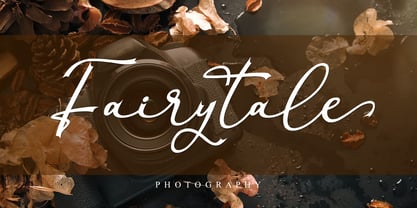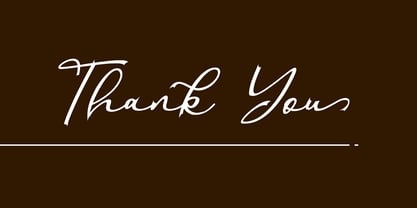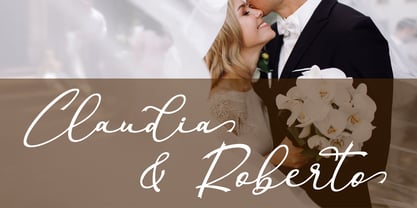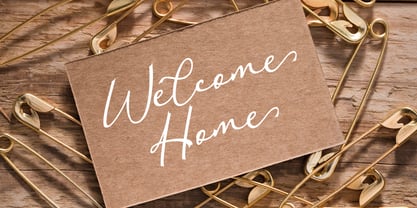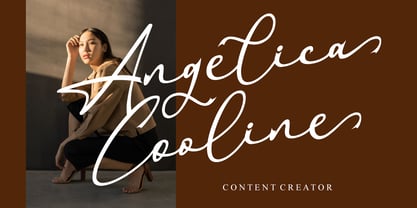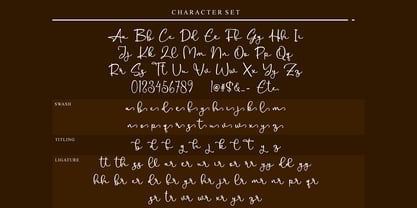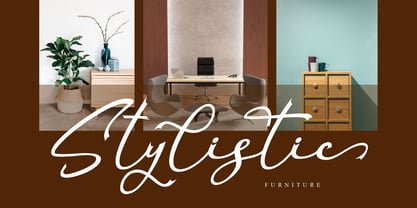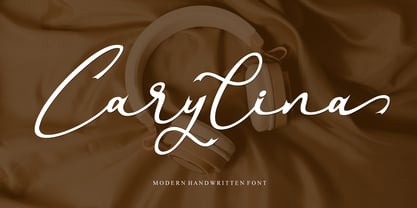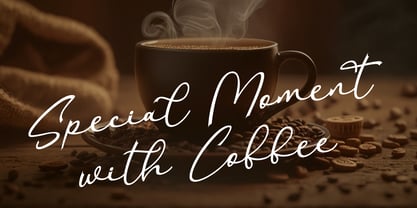
Carylina
von Letterafandi Studio
Die Schriftfamilie Carylina wurde von Ahmad Afandi entworfen und von Letterafandi Studio veröffentlicht. Carylina enthält 3 Stile und Familienpaketoptionen.
Immerse yourself in the artisanal charm of Carylina, an exquisitely designed handwritten font. Guaranteed to embellish any creative project, Carylina is the ideal typography solution for crafting captivating logos, romantic wedding invitations, and beyond. Its refined strokes and distinct character make it a vital addition to any design toolkit. Unleash your creativity and let Caryline elevate your design aesthetics to a whole new level.
Designer: Ahmad Afandi
Herausgeber: Letterafandi Studio
Foundry: Letterafandi Studio
Eigentümer des Designs: Letterafandi Studio